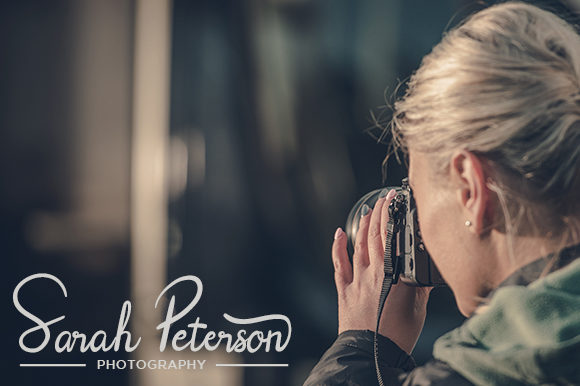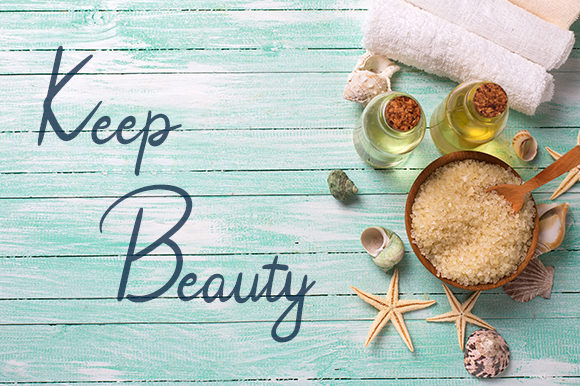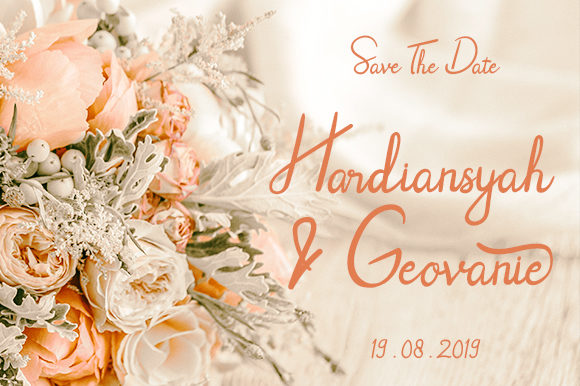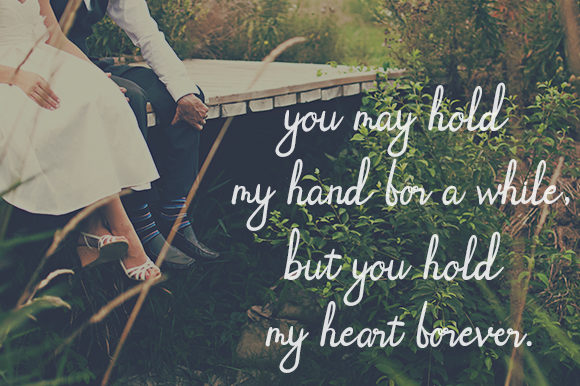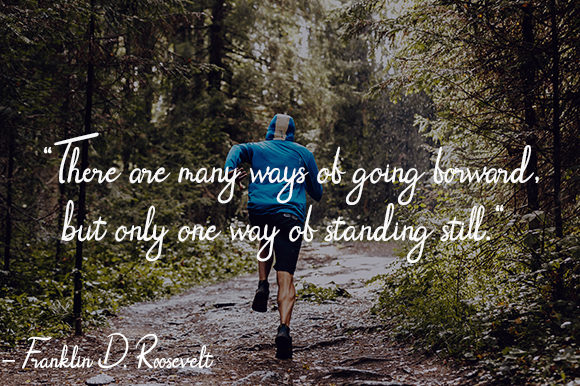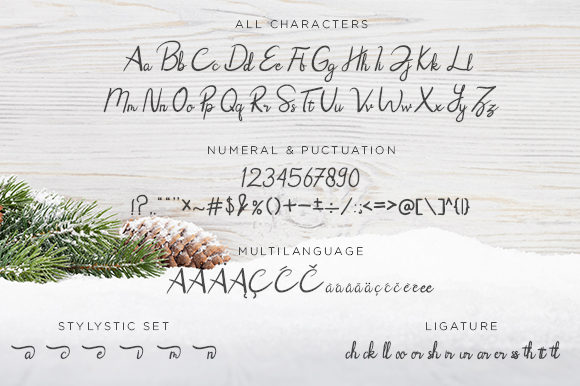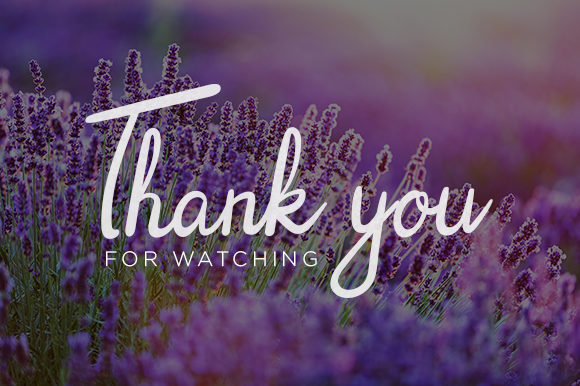
Rhoselinna Font
About Rhoselinna Font
The Rhoselinna is an amazing handwritten font. It has an elegant style and will add an upscale and chic look to every design.
It’s perfect for logo’s, branding projects, homeware designs, product packaging, mugs, quotes, posters, shopping bags, and every other design which needs a handwritten touch.